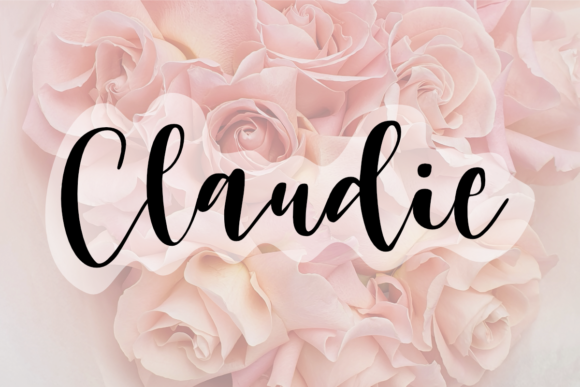
Behold, Claudie Font - the enchanting script font that will cast a spell on your designs, inviting you to a world of elegance and romance.
Picture this: a wedding invitation adorned with Claudie's graceful curves, whispering tales of love and commitment. Its delicate strokes, reminiscent of a lover's caress, will transport your guests to a realm of pure enchantment.
Envision a captivating logotype, adorned with Claudie's timeless beauty. Its alluring characters, like stars in the night sky, will command attention and leave an everlasting impression.
Imagine your product branding taking on a life of its own, imbued with Claudie's charm and sophistication. Its enchanting letters will elevate your brand, making it the object of desire for customers far and wide.
With Claudie Font, you hold the key to unlocking a world of creative possibilities. Its versatility knows no bounds, making it the perfect choice for wedding invitations, logotypes, and product branding.
Fall under the spell of Claudie's allure and experience the magic it brings to your designs. Prepare to be captivated as your creations blossom into masterpieces, leaving your audience spellbound.
Claudie Font - the key to unlocking a world of enchanting designs. Embrace its beauty and watch your creativity soar!